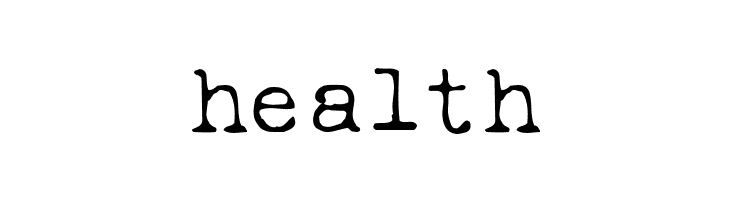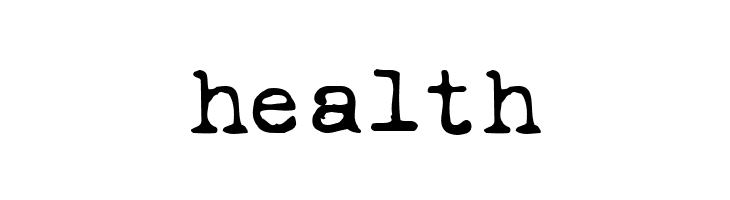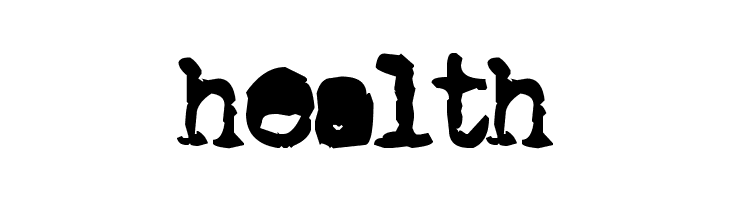
A vintage typewriter-style font with a distressed, textured appearance.
A distressed, vintage typewriter-style font with bold, textured characters.
A vintage, textured serif font with a distressed, typewriter-like appearance.
A distressed, vintage serif font with a textured, weathered look.
A distressed, grungy font with a vintage, textured appearance.
A vintage typewriter-style font with a textured, monospaced design.